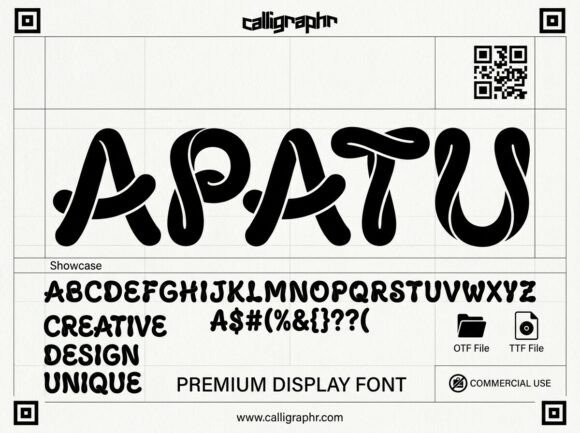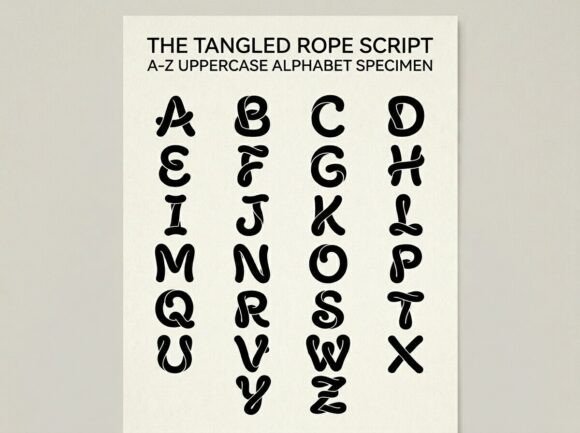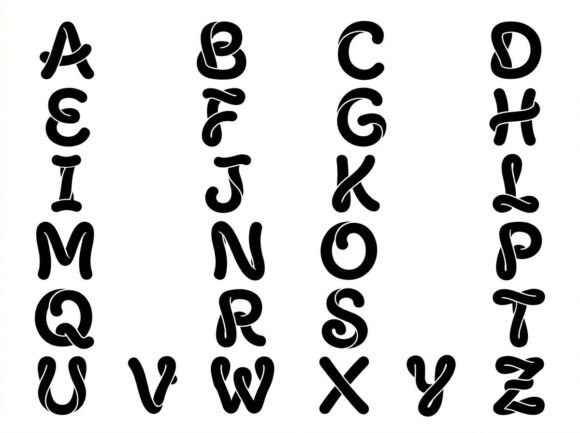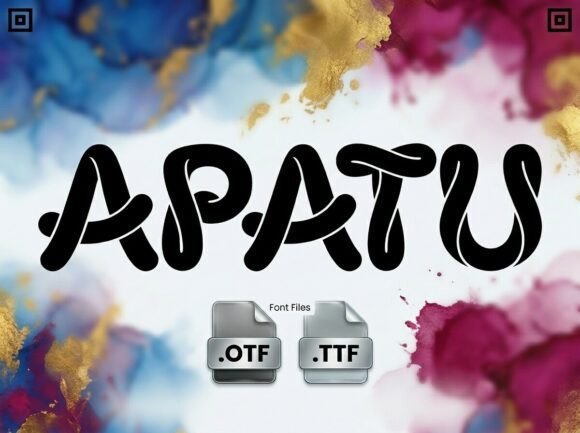
Introducing Apatu Font: Elevate Your Creative Projects with a Unique Display Font
Are you tired of using the same old fonts for your creative projects? Do you want to add a touch of personality and sophistication to your designs? Look no further than Apatu Font, a decorative display font designed to be the centerpiece of any layout. With its distinct artistic elements and strong character, Apatu Font is perfect for creators who want to break away from the ordinary and elevate their work to the next level.
What Makes Apatu Font Special?
Apatu Font is a carefully crafted display font that boasts a unique and artistic design. Its bold and eye-catching style makes it perfect for use in a variety of creative projects, from bold headlines to creative branding and packaging. The font’s strong character and distinct artistic elements ensure that it stands out from the crowd, adding a touch of personality and sophistication to any design.
Key Features of Apatu Font
- All-Caps Display Typeface: By design, Apatu Font is an all-caps display typeface, making it perfect for use in logos, titles, and decorative initials. The font does not contain lowercase letters, which allows for a more stylized and artistic approach to typography.
Apatu Font is perfect for designers and crafters who want to add a touch of personality and sophistication to their work. Whether you’re working on a branding project, creating packaging, or designing a website, this font is sure to impress. Its unique and artistic design makes it perfect for use in a variety of creative projects, from bold headlines to decorative text.
Benefits of Using Apatu Font
- High-End Aesthetic: Apatu Font delivers a high-end, professional aesthetic without compromising on personality. Its unique design ensures that your work stands out from the crowd.
- Versatile: Apatu Font is versatile and can be used in a variety of creative projects, from branding and packaging to website design and more.
Tips for Using Apatu Font
Here are a few tips for using Apatu Font in your creative projects:
- Use it as a Headline Font: Apatu Font is perfect for use as a headline font, adding a touch of personality and sophistication to any design.
- Experiment with Different Colors: The font looks great in a variety of colors, so don’t be afraid to experiment and find the perfect hue for your design.
- Pair it with Other Fonts: Apatu Font pairs well with other fonts, so feel free to get creative and experiment with different font combinations.
In conclusion, Apatu Font is a unique and artistic display font that is perfect for designers and crafters who want to elevate their creative projects to the next level. With its distinct artistic elements and strong character, it’s sure to add a touch of personality and sophistication to any design. Whether you’re working on a branding project, creating packaging, or designing a website, Apatu Font is the perfect choice.